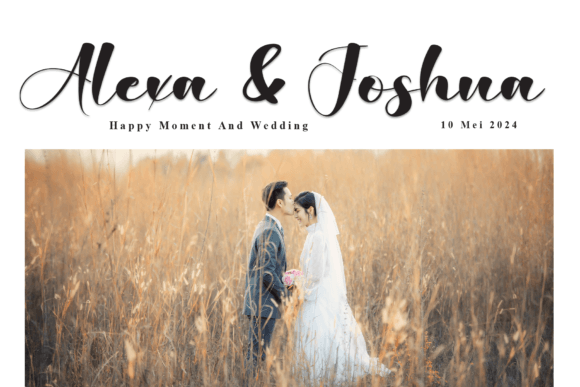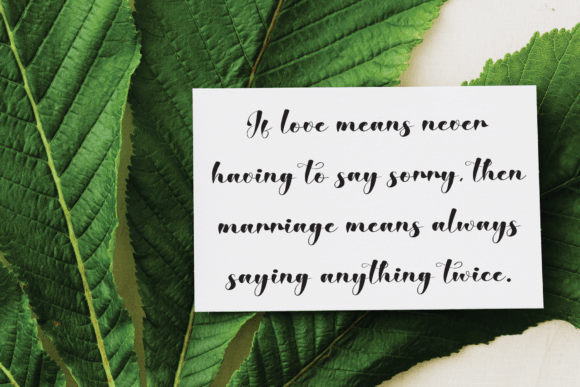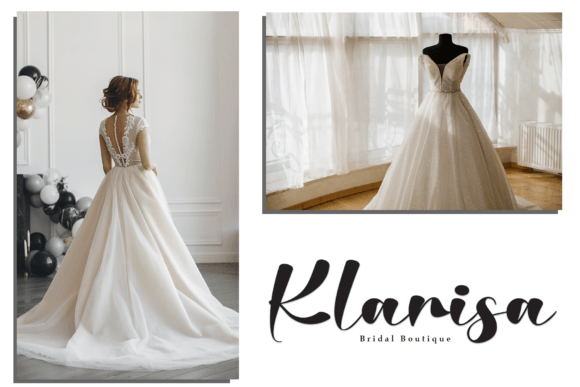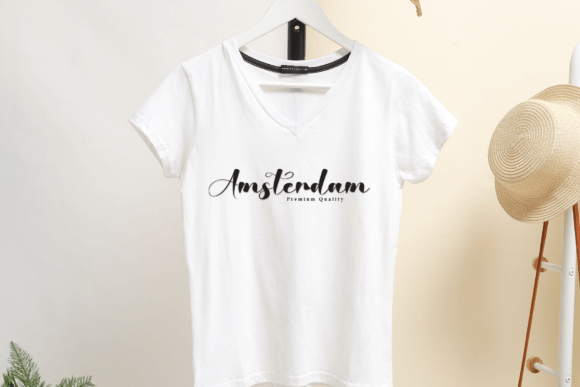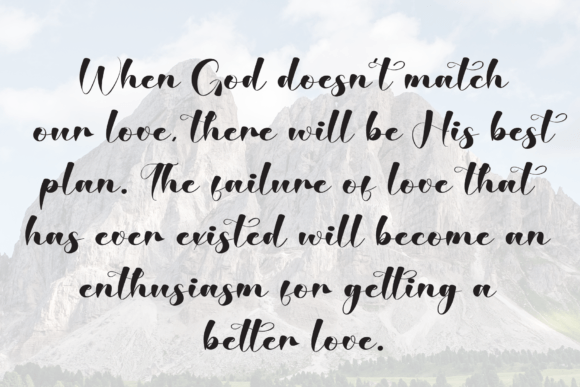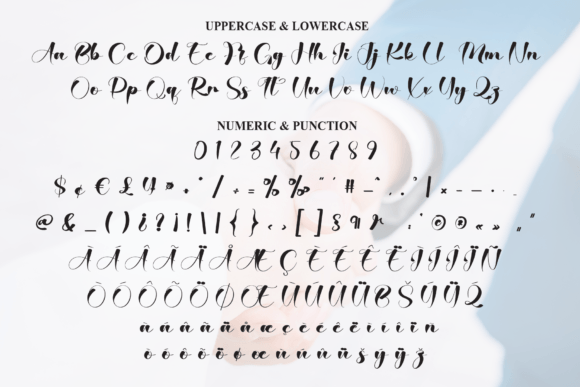
Introduction to Partner Monica Font
Partner Monica is a cute and casual handwritten font that brings a delightful touch to any project.
With its playful curves and friendly character, itโs ideal for greeting cards, whimsical branding, and cozy invitations Add a sweet, personal flair to your designs with this charming typeface.
Key Features of Partner Monica Font